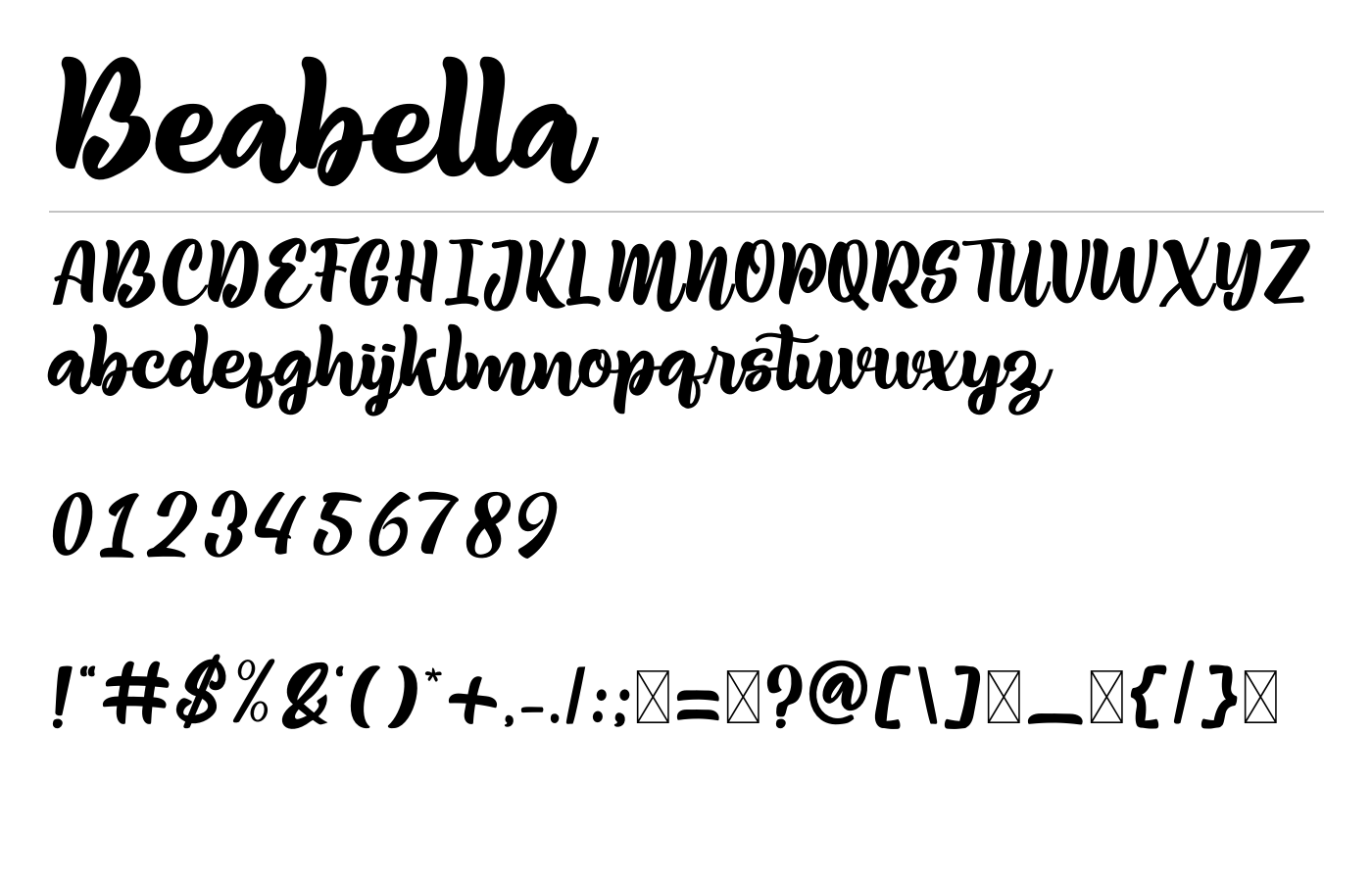
Beabella is a bold, casual script font with a lively and friendly character, featuring smooth, rounded strokes and a hand-drawn feel. Its playful yet confident style makes it ideal for branding, invitations, and headlines that seek warmth and personality. This font works best where an approachable, artistic touch is desired without sacrificing readability.
Beabella Font
About Beabella Font
| Font family | Beabella Font |
| Designer | EKNOJI |